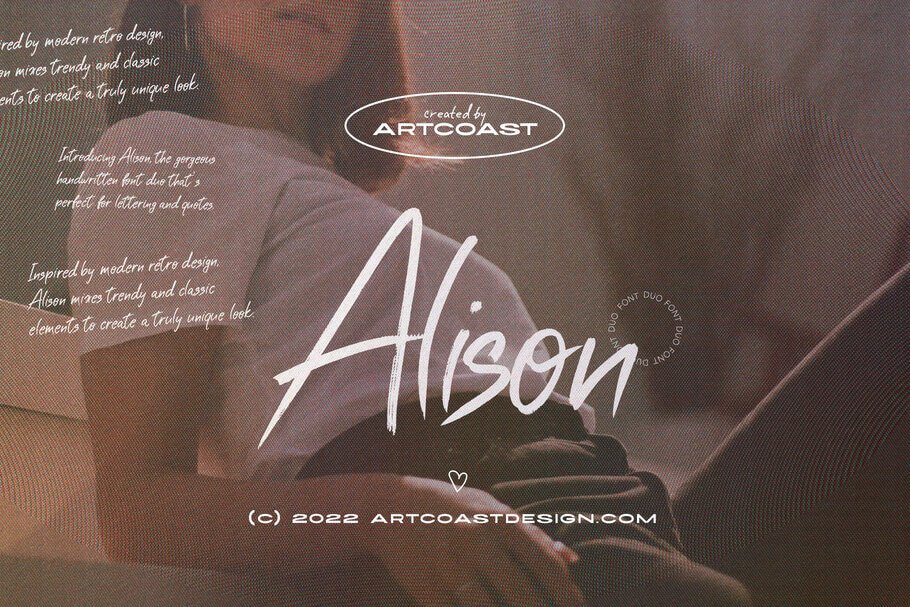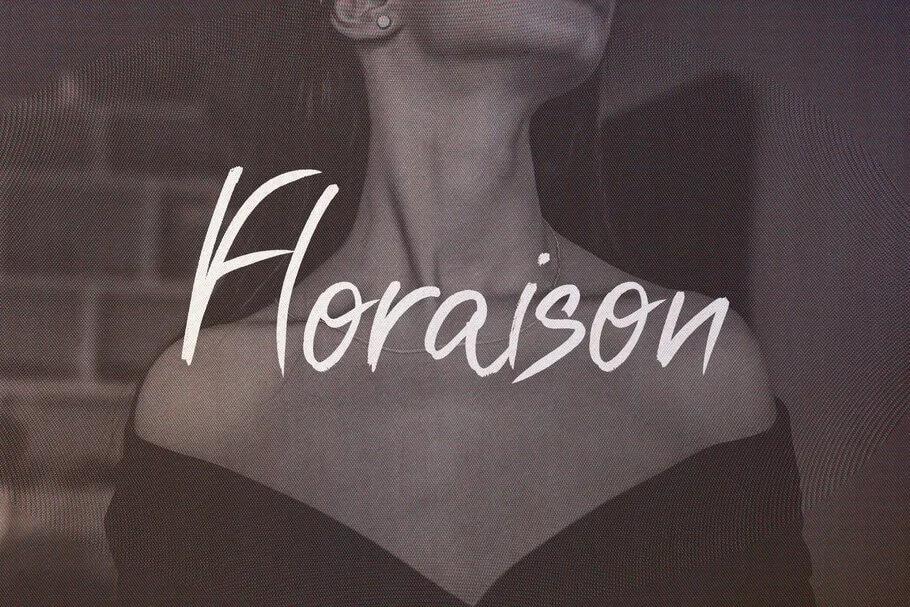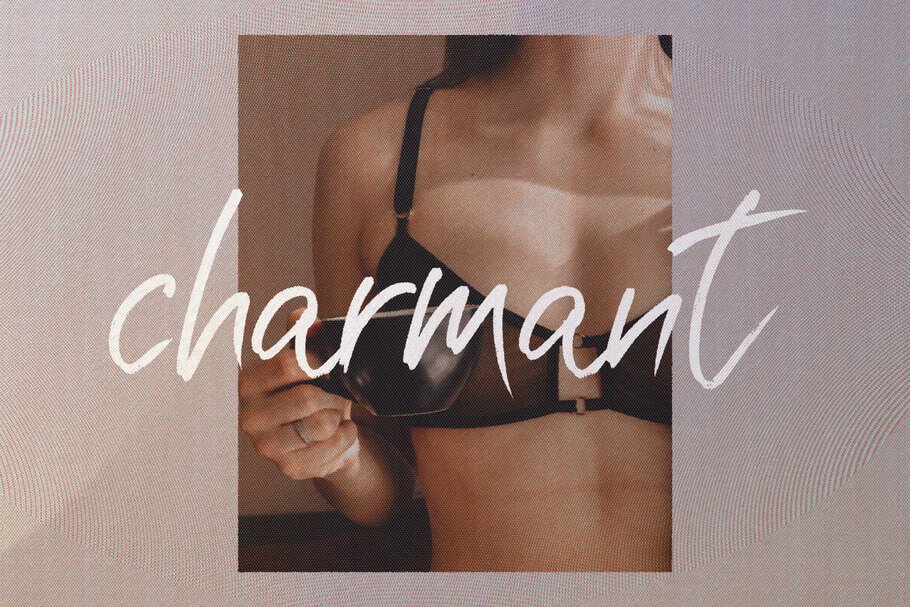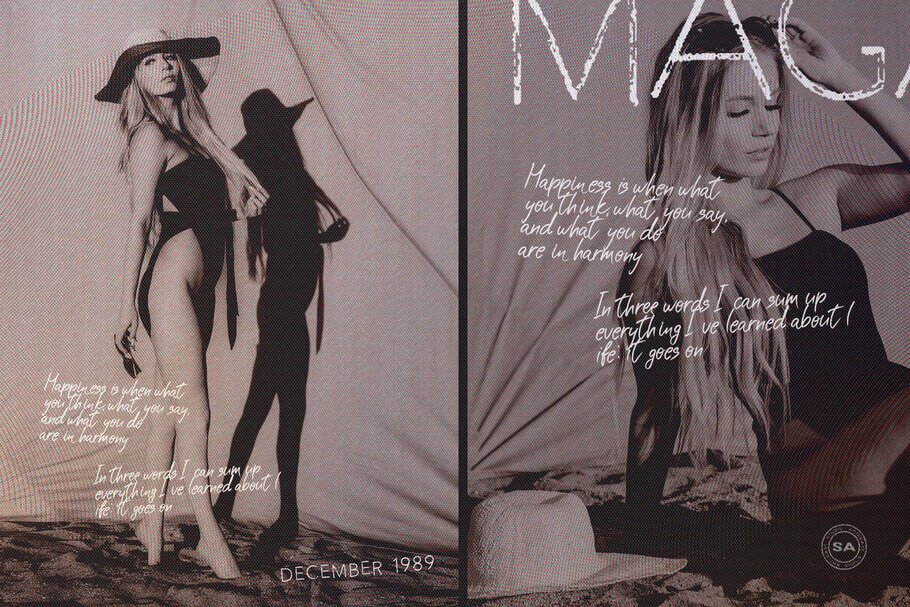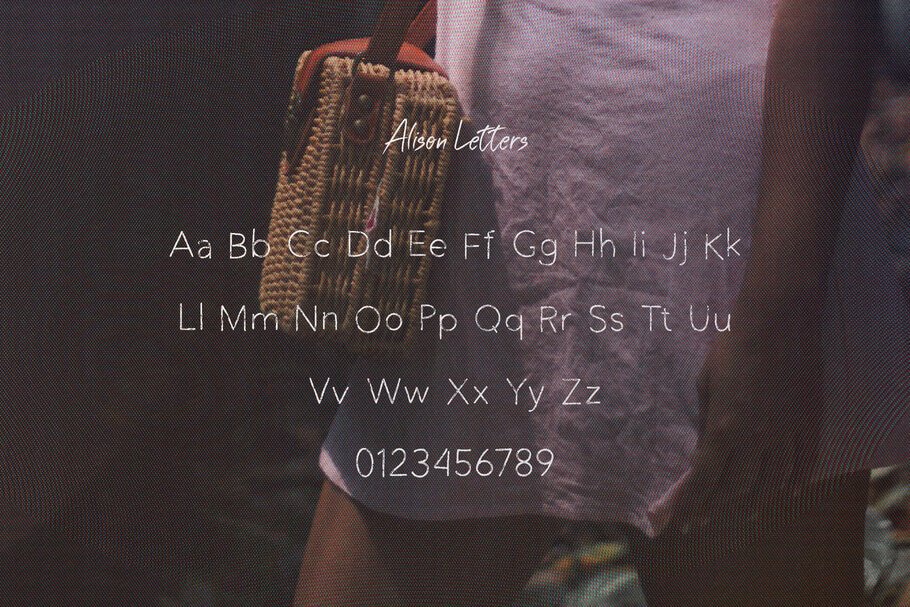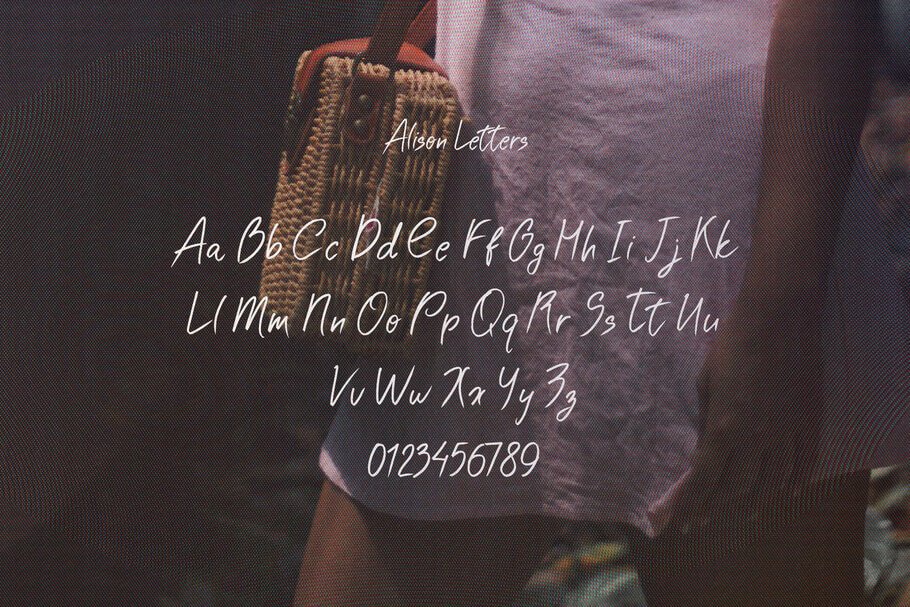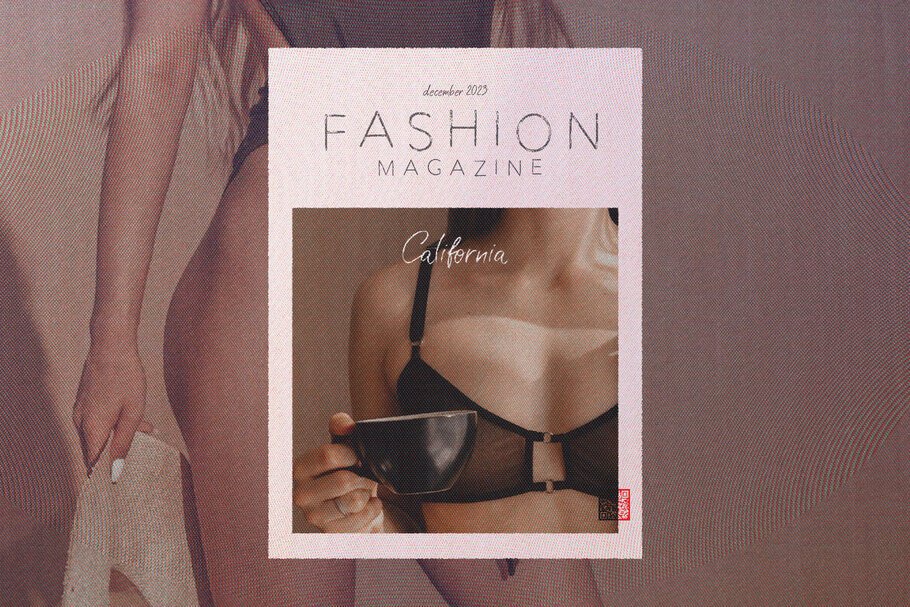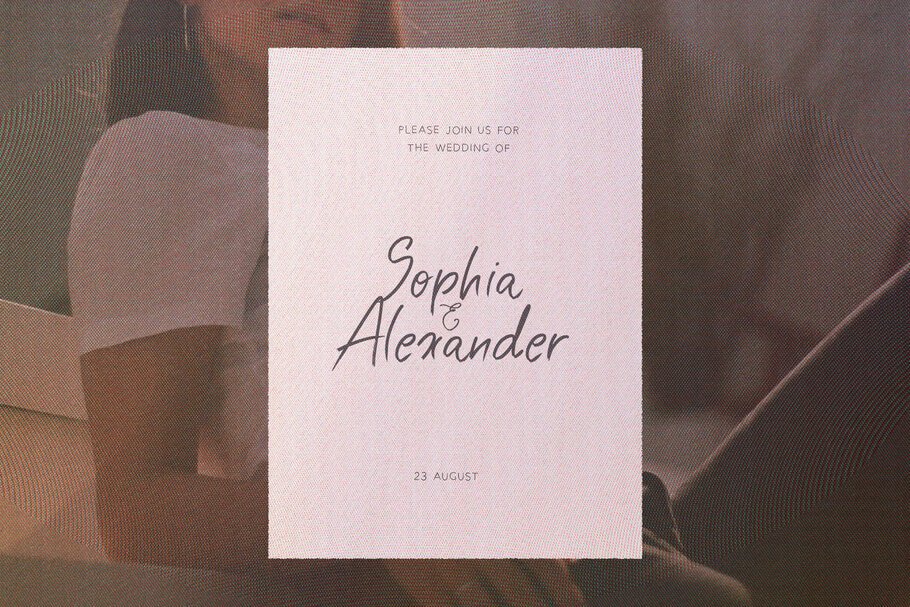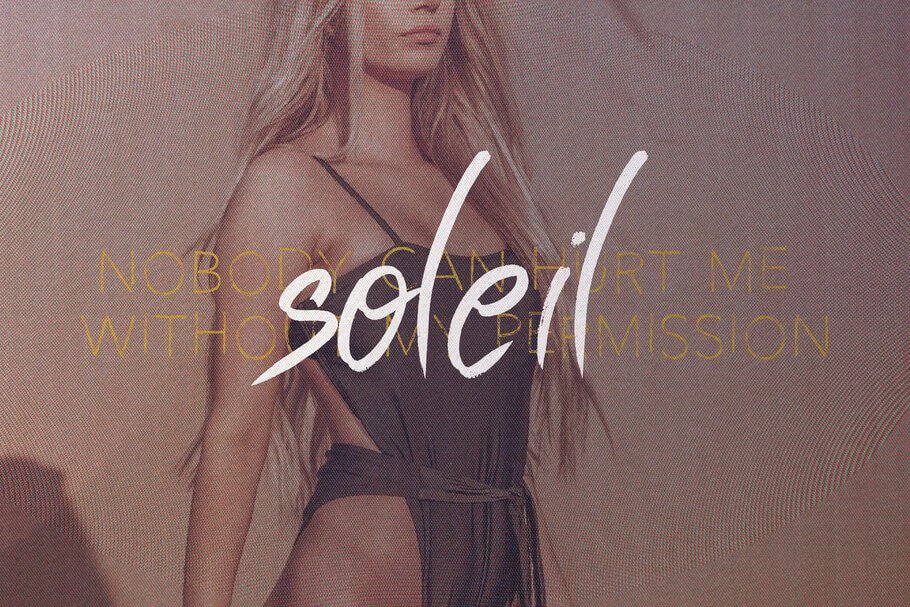
Discover the Alison Handwritten Font Duo – a perfect blend of two complementary handwritten fonts designed to elevate your branding, logos, and creative projects. With its stylish and versatile design, this font duo is ideal for creating unique invitations, packaging, social media graphics, and more.
Whether you’re crafting elegant cards or modern posters, Alison adds charm and personality to every design. Its seamless pairing ensures effortless creativity, making it a must-have for designers and artists alike. Transform your projects with the artistic touch of Alison Handwritten Font Duo today!